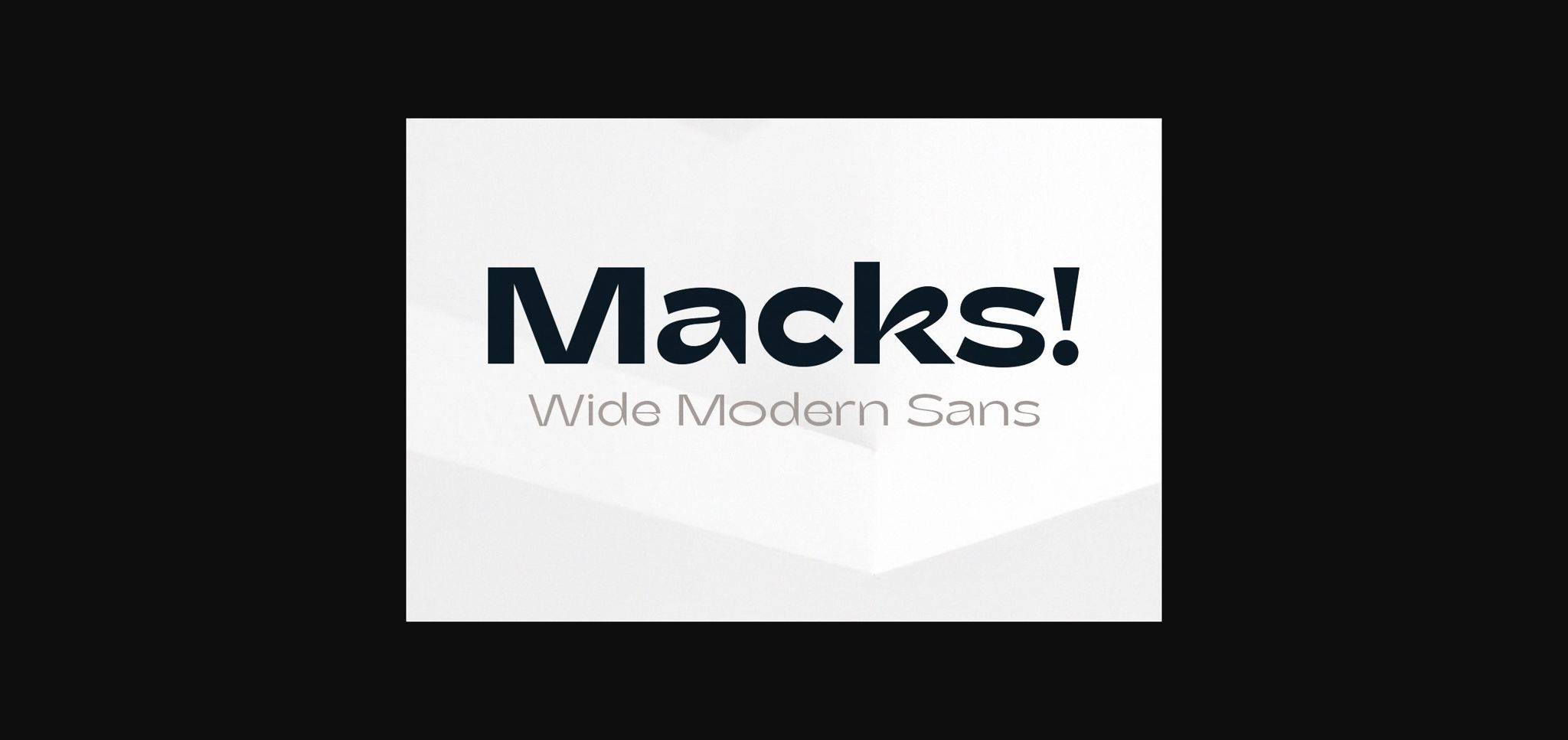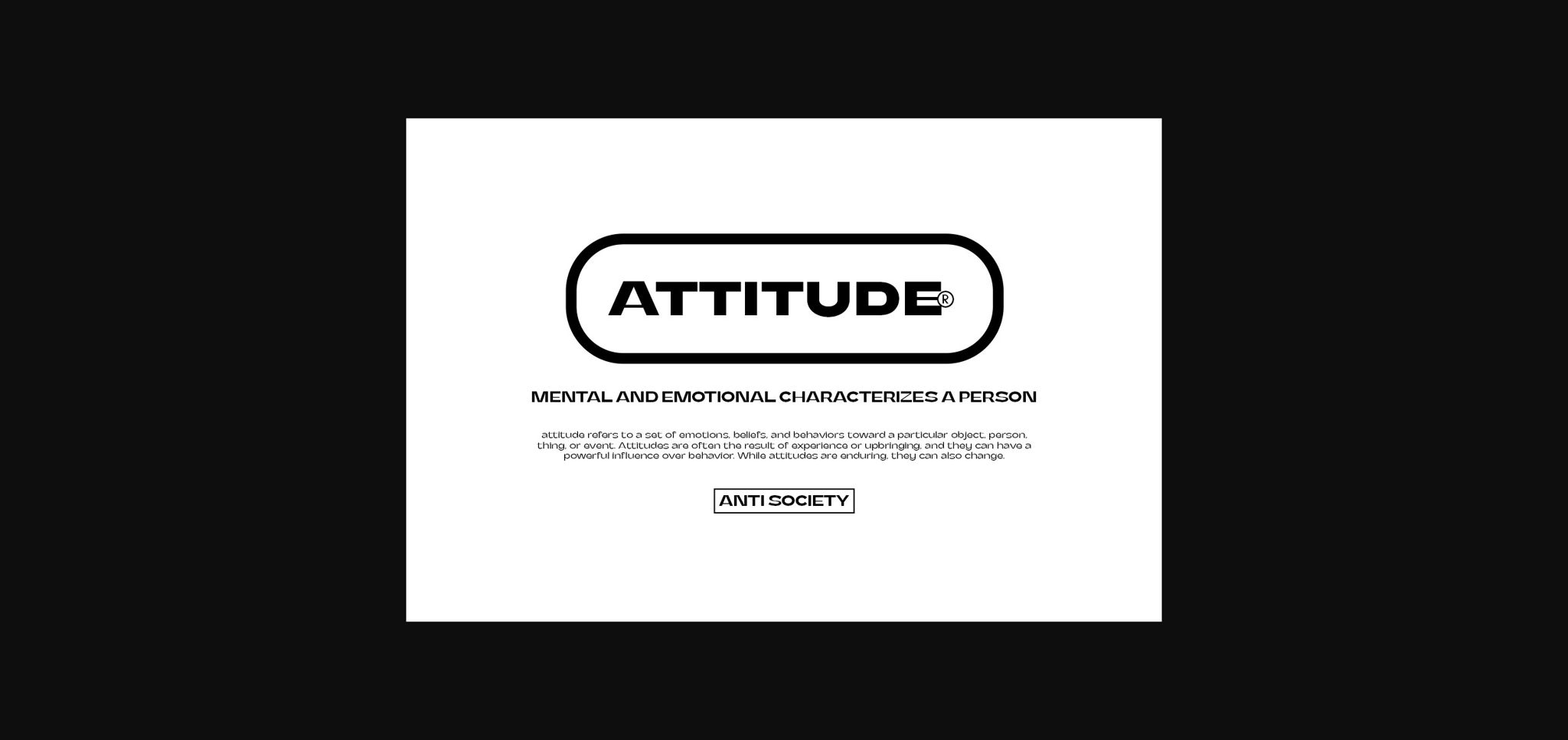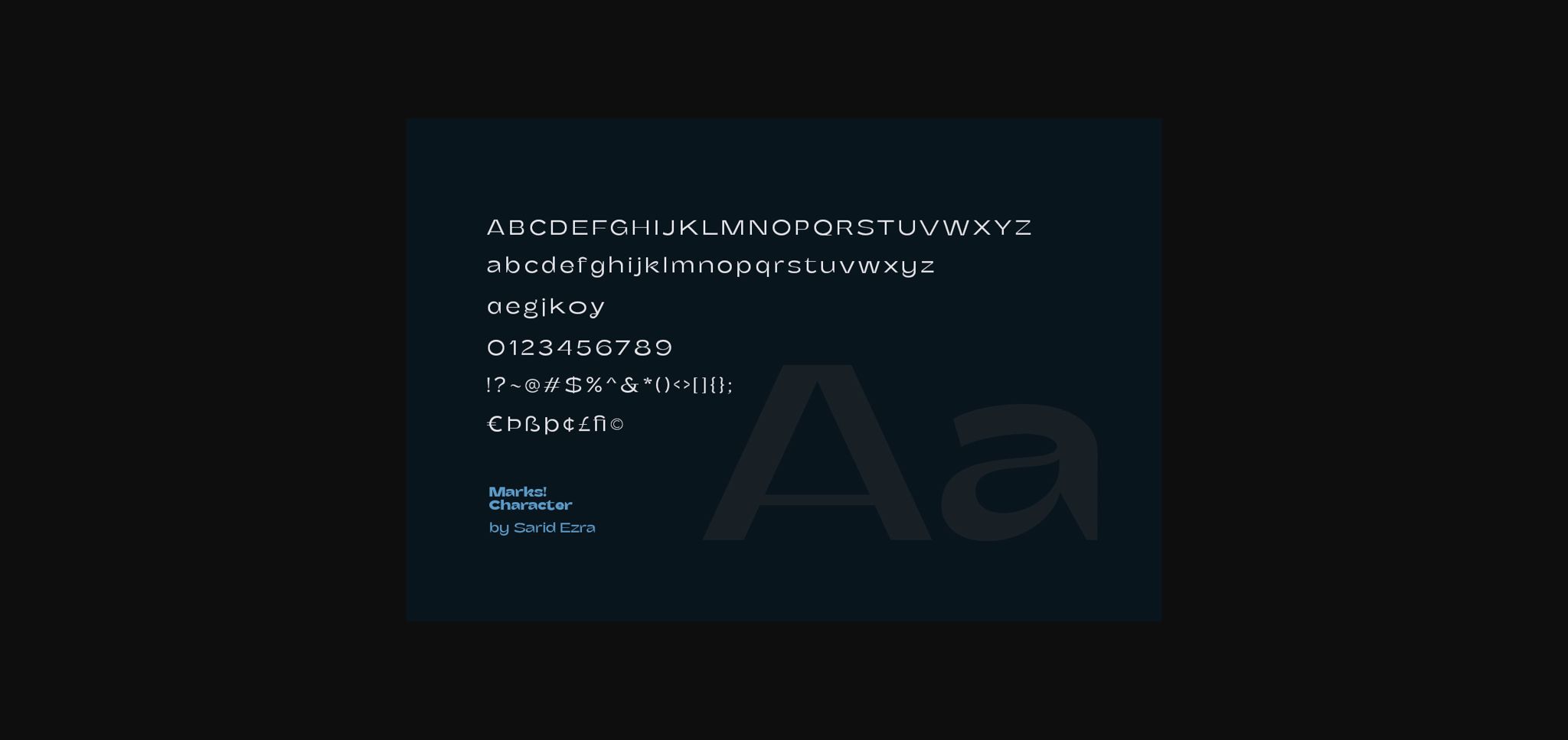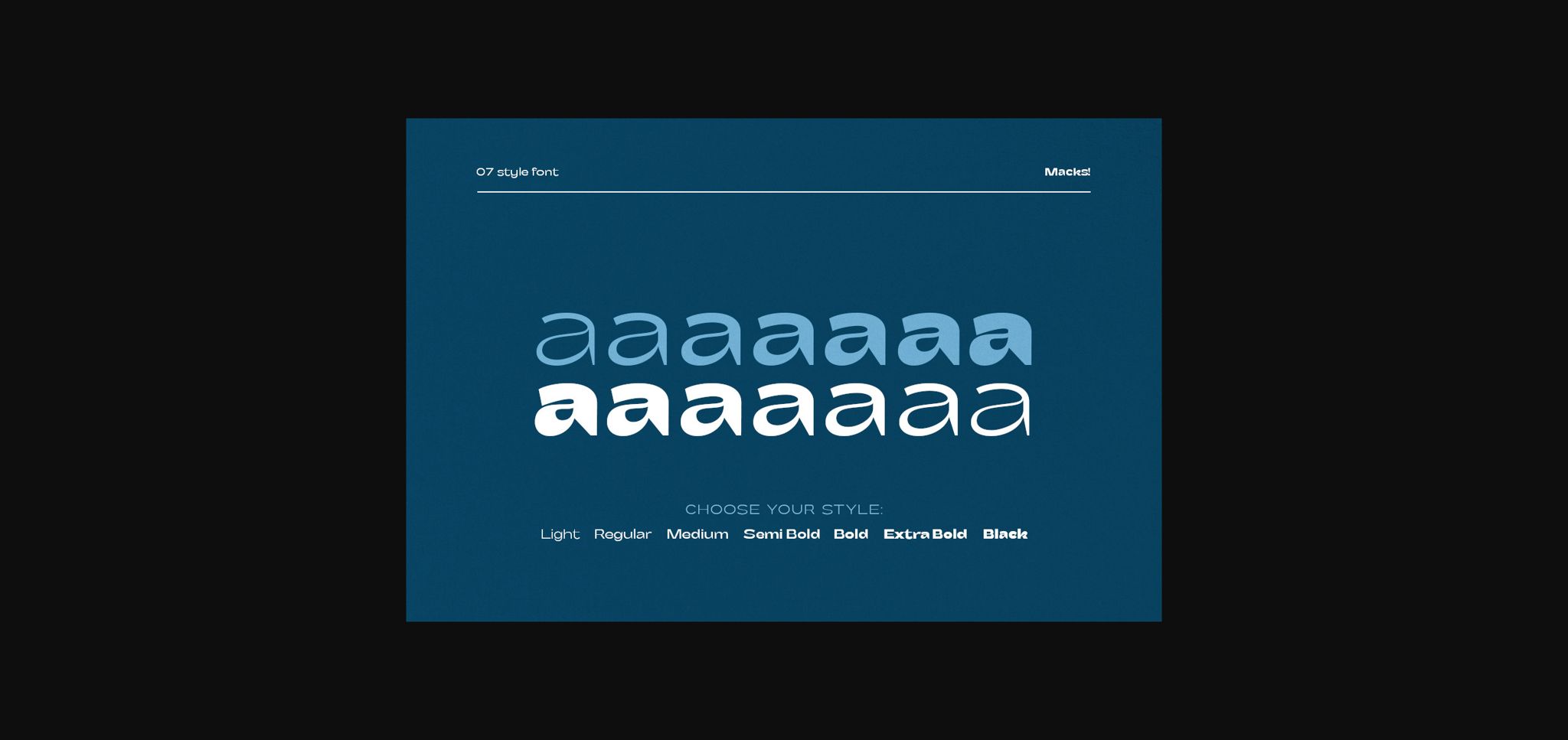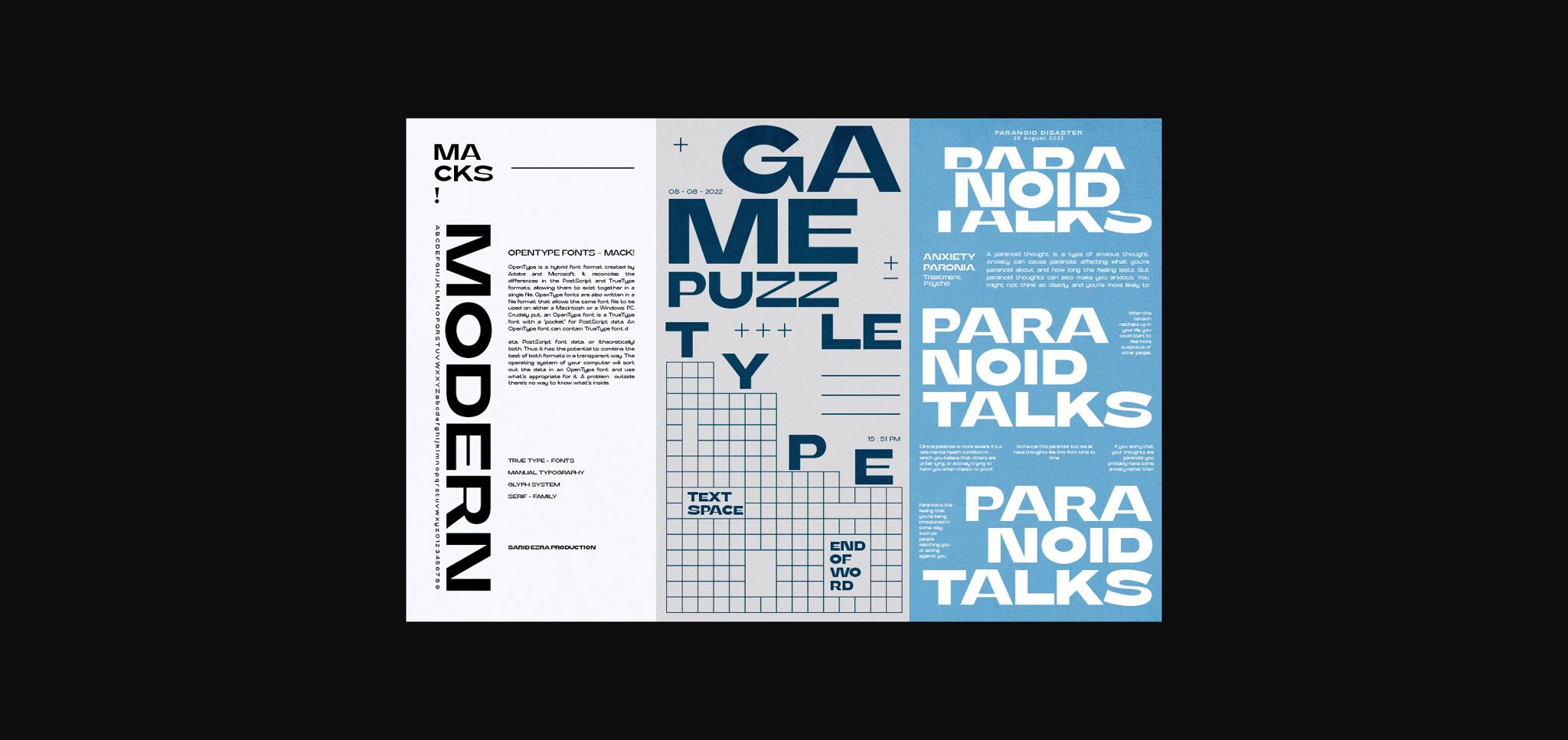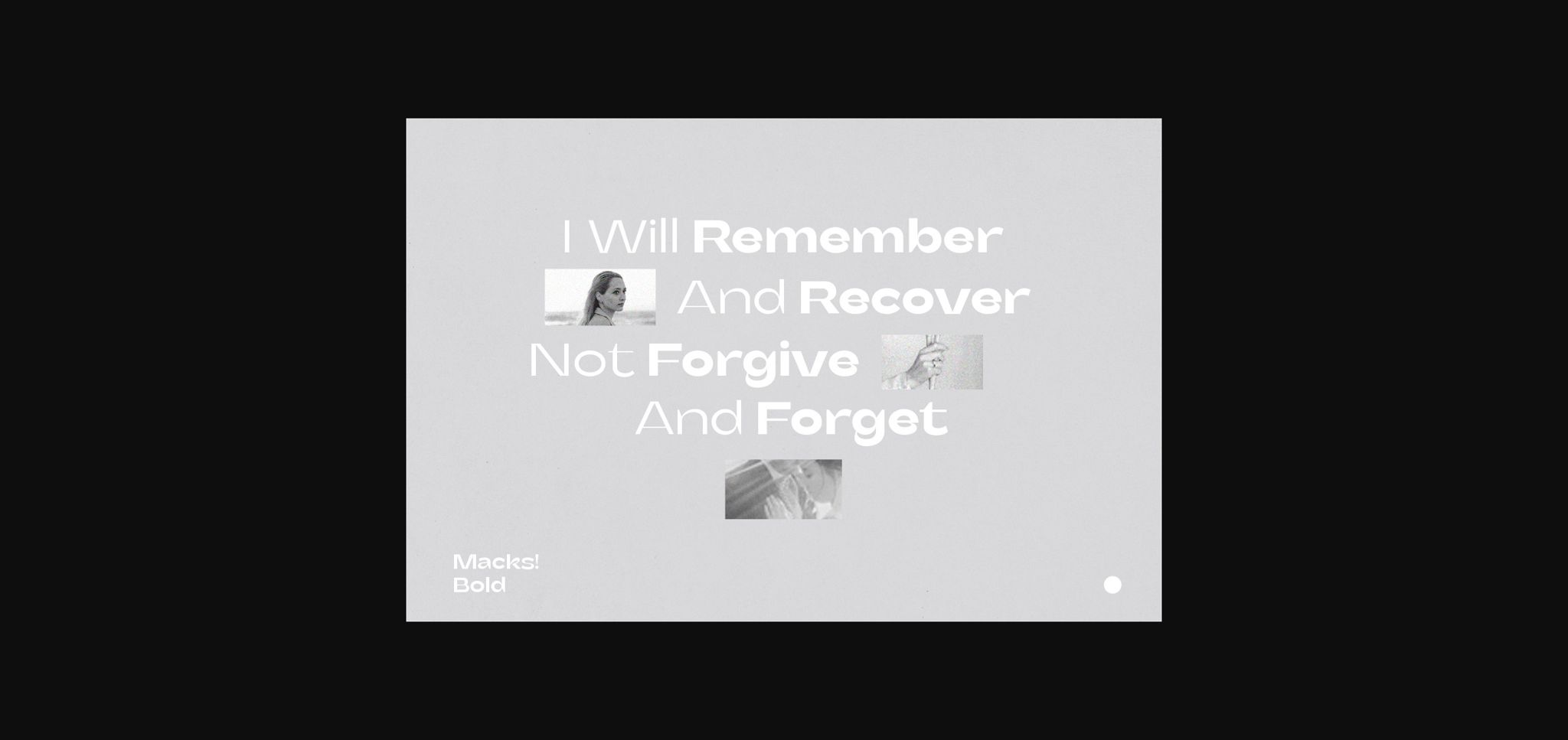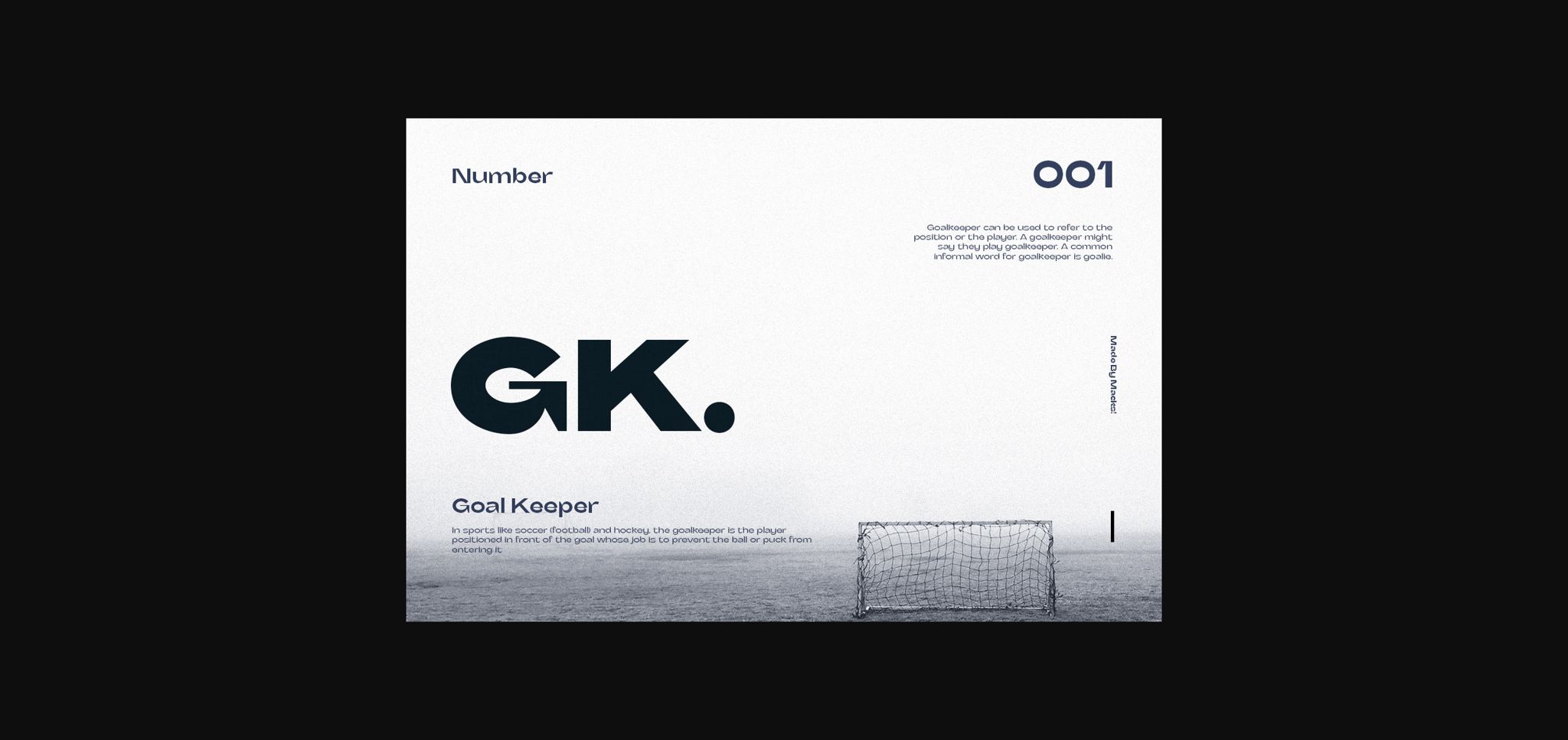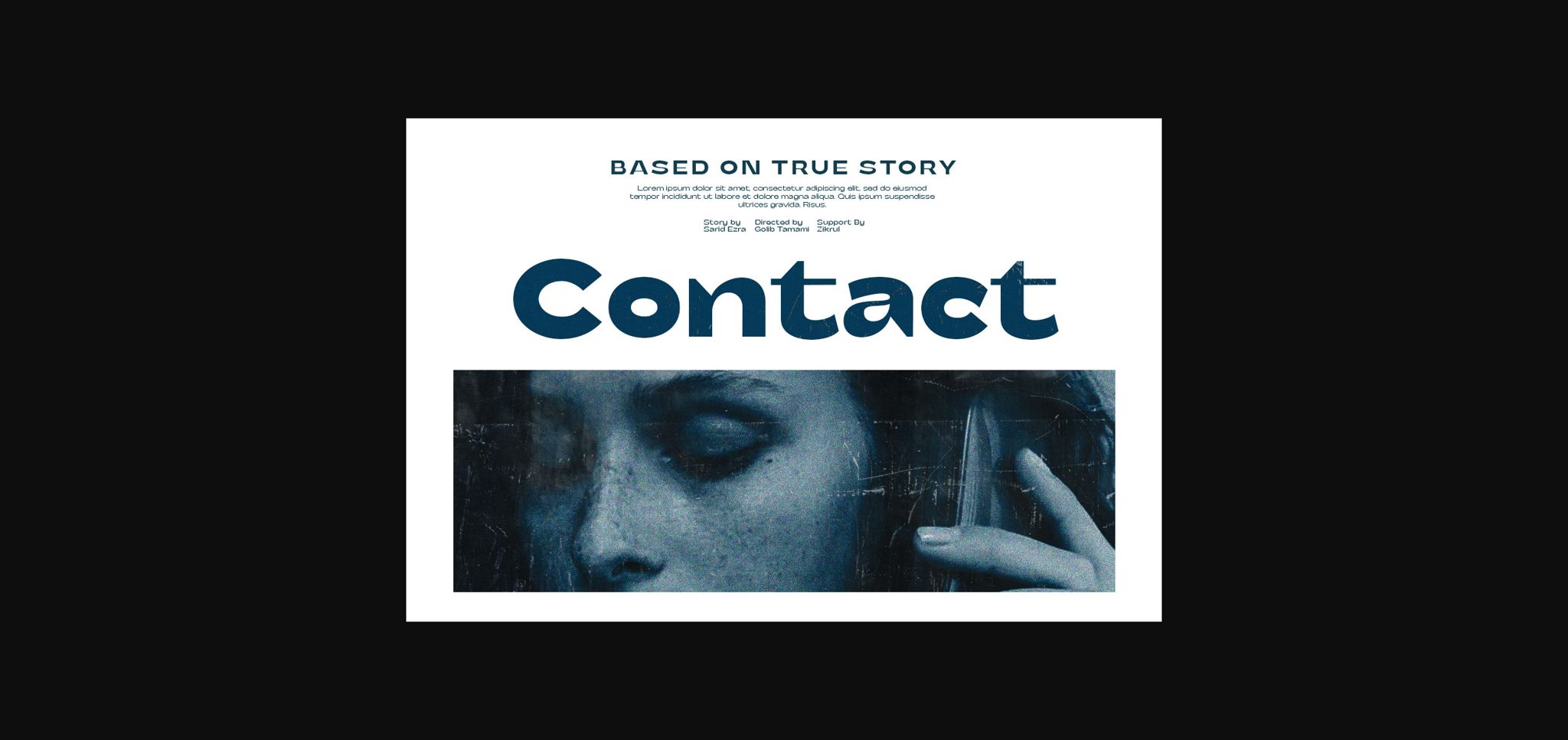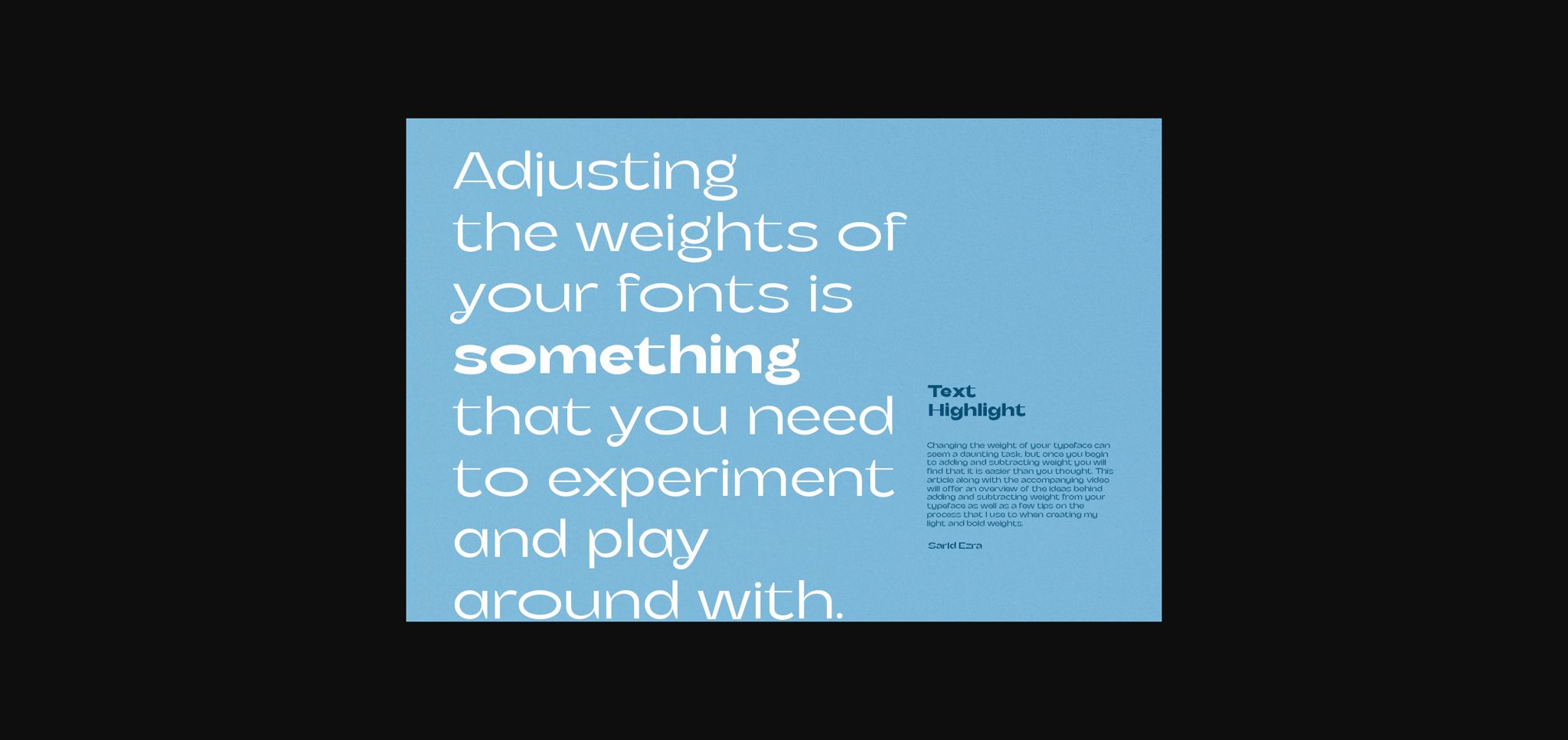
Macks is a cool, wide, and bold sans serif font. No matter the topic, this font will be an incredible asset to your fonts’ library, as it has the potential to elevate any creation.